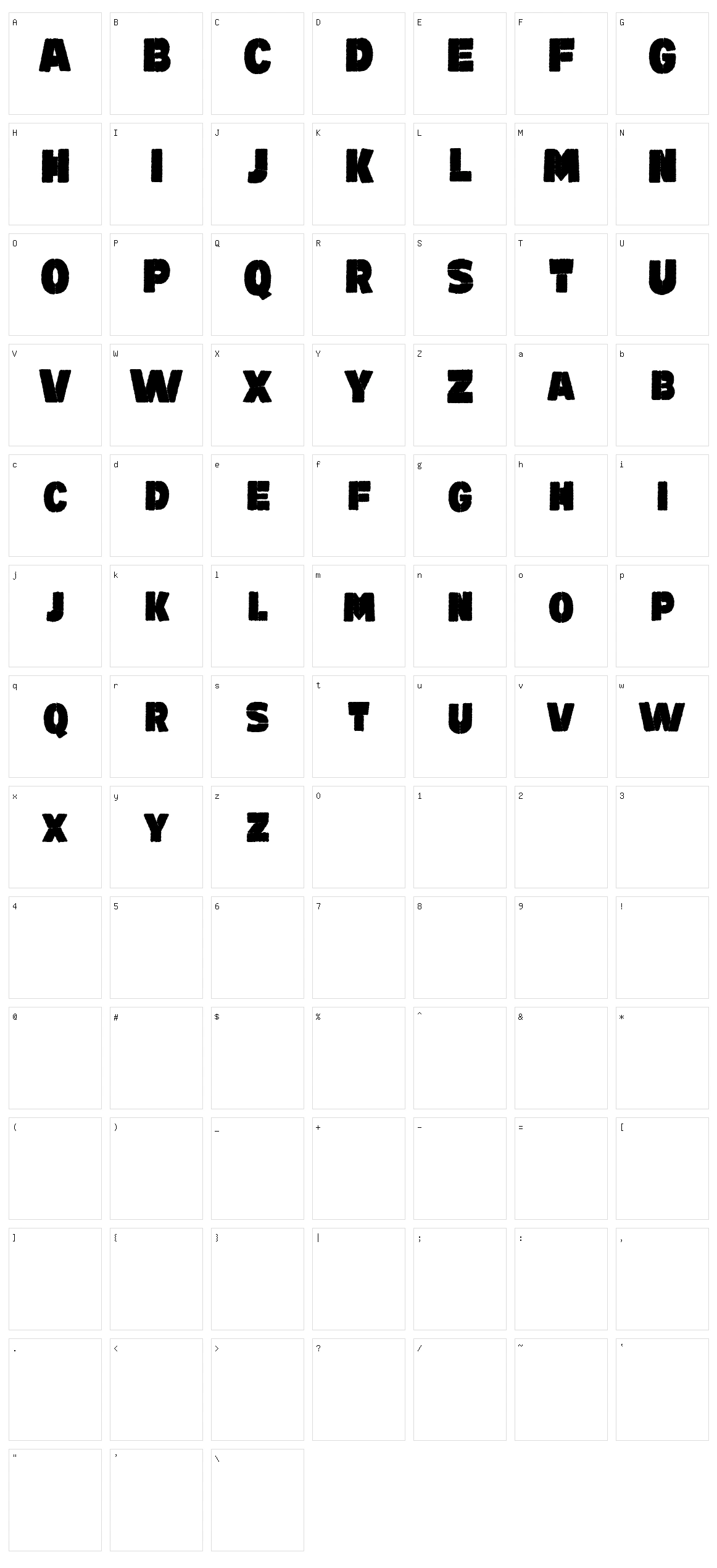
The free font Suspiria Vampira is carefully designed by Konstantine Studio, showcasing a thoughtful balance of creativity and usability and falls under the Horror font style. When you download the ZIP file, it contains only 29.13 KB of font files, making it lightweight and quick to download. Please review the license details below to understand permitted usage and distribution rights. If license information is not available, we recommend using this font for personal projects only or contacting the author directly for commercial usage permissions.